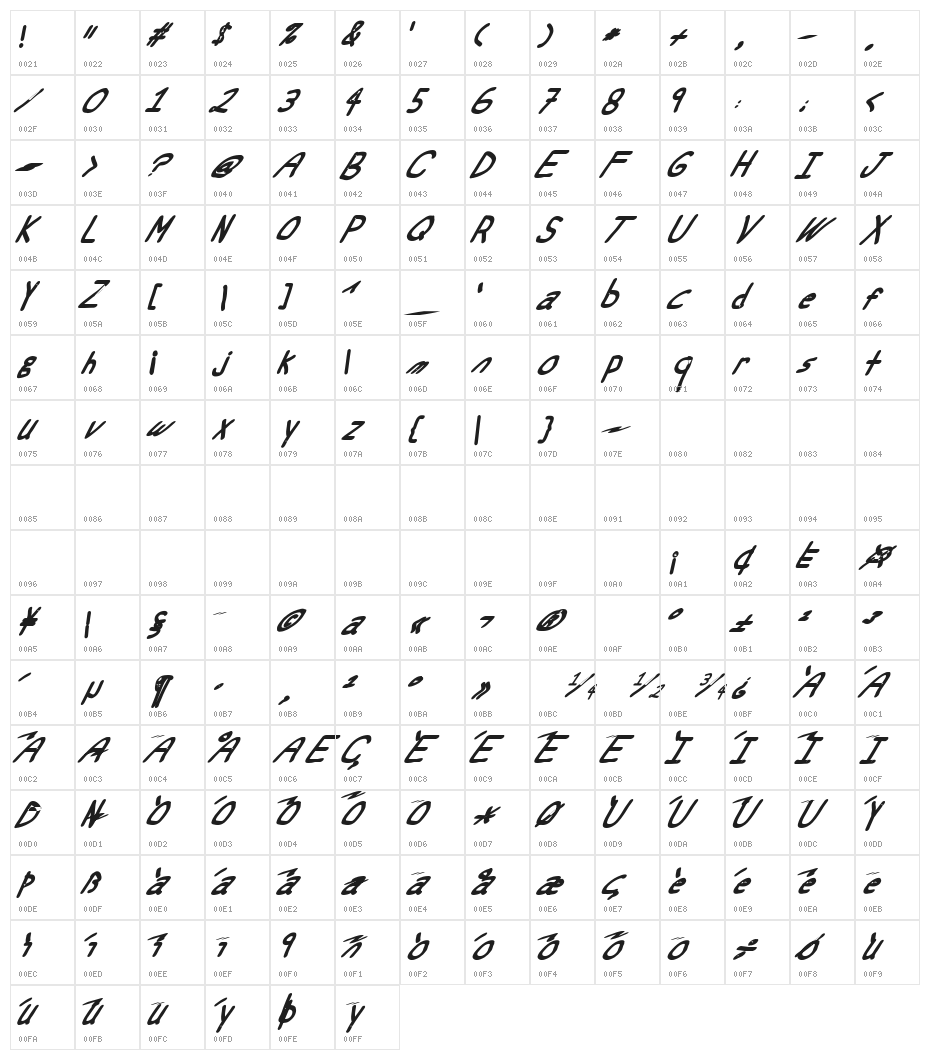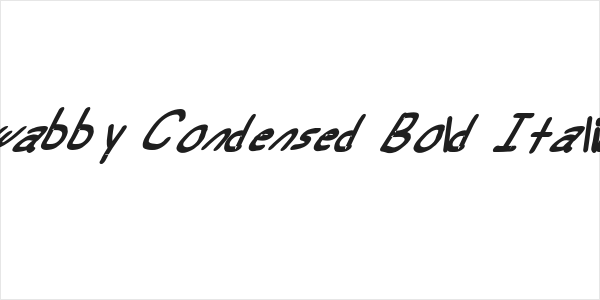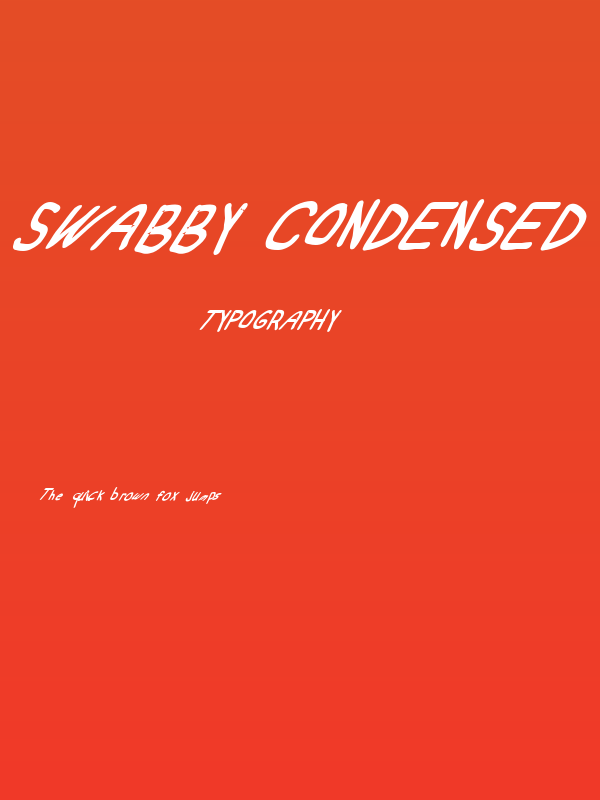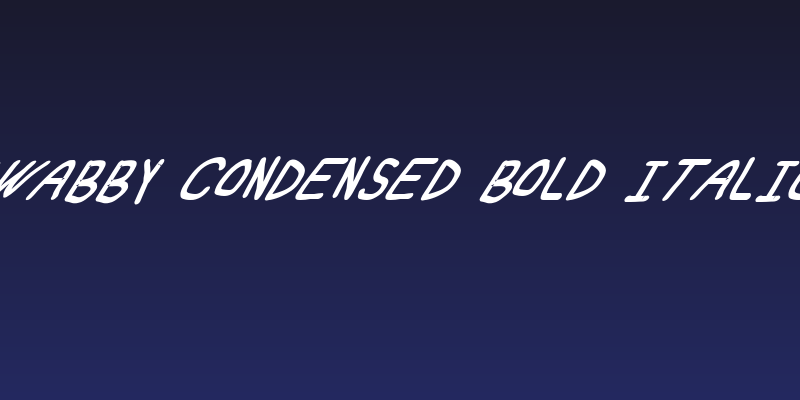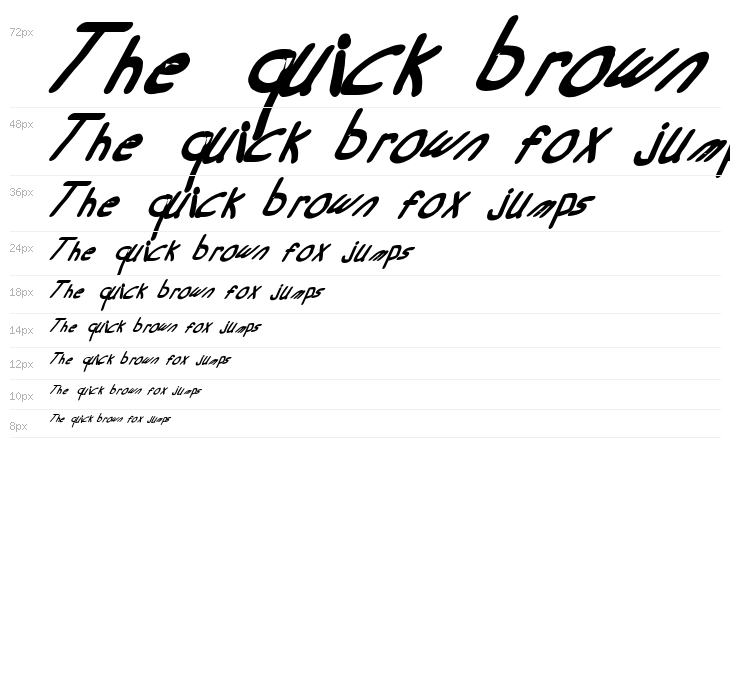
Swabby Condensed Bold Italic Font
Swabby Condensed Bold Italic Description
This font features a bold and italicized style with a condensed width, giving it a dynamic and energetic appearance. The characters are slightly slanted, enhancing the sense of motion and fluidity. The strokes are thick and consistent, providing a strong visual impact. The uppercase and lowercase letters maintain a cohesive look, with rounded edges and smooth curves that add a touch of elegance. The numbers and special characters are designed to match the overall style, ensuring uniformity across all elements. This font is ideal for projects that require a bold statement and a modern, edgy feel.
| Proposed Projects | Ideal for branding, advertising, posters, and headlines that need a bold and modern touch. |